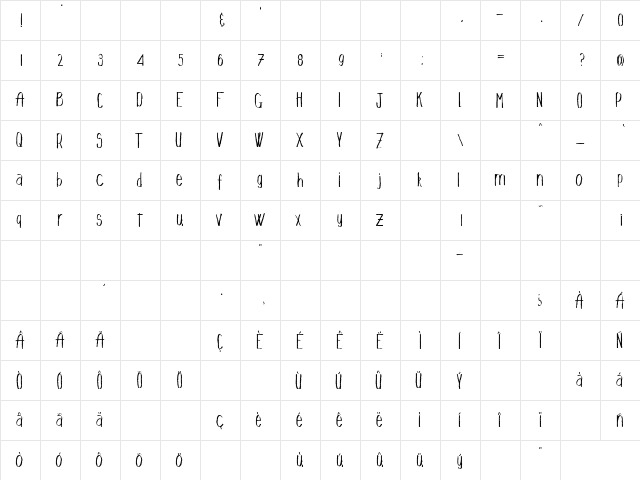
Tall Drink Regular Font Preview
Tall Drink Regular
Design Context for Tall Drink Typeface
Tall Drink is a composed and adaptable typeface that performs quietly and consistently across a wide range of design contexts.